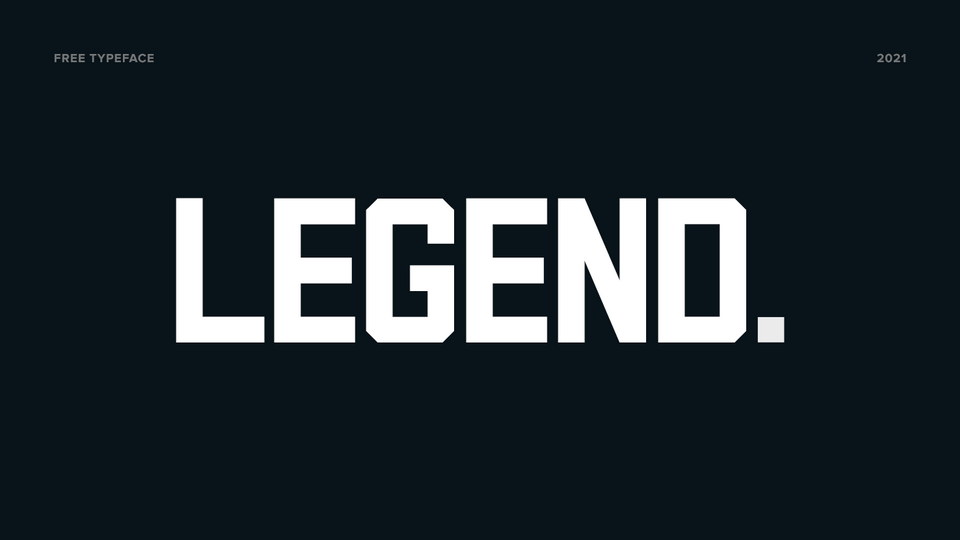
Download Legend font, a bold, condensed sans serif typeface, ready to grab some eyes. Its unapologetic strength makes Legend font perfect for posters, ads and even logos.
Designer: Artyom Levanov